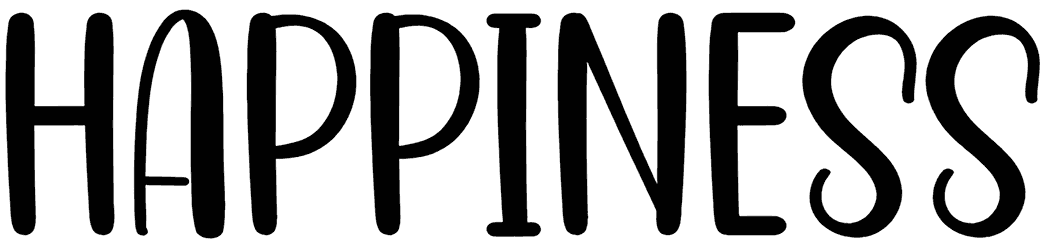
Happiness Font
Say hello to Happiness, an adorable, funny invitation font with a friendly, charming feel. This all-caps font has the potential to become your favorite one and elevate your project in the blink of an eye. It will work great for designing product packaging, book covers, birthday invitations, greeting cards, website headers, and comic books.